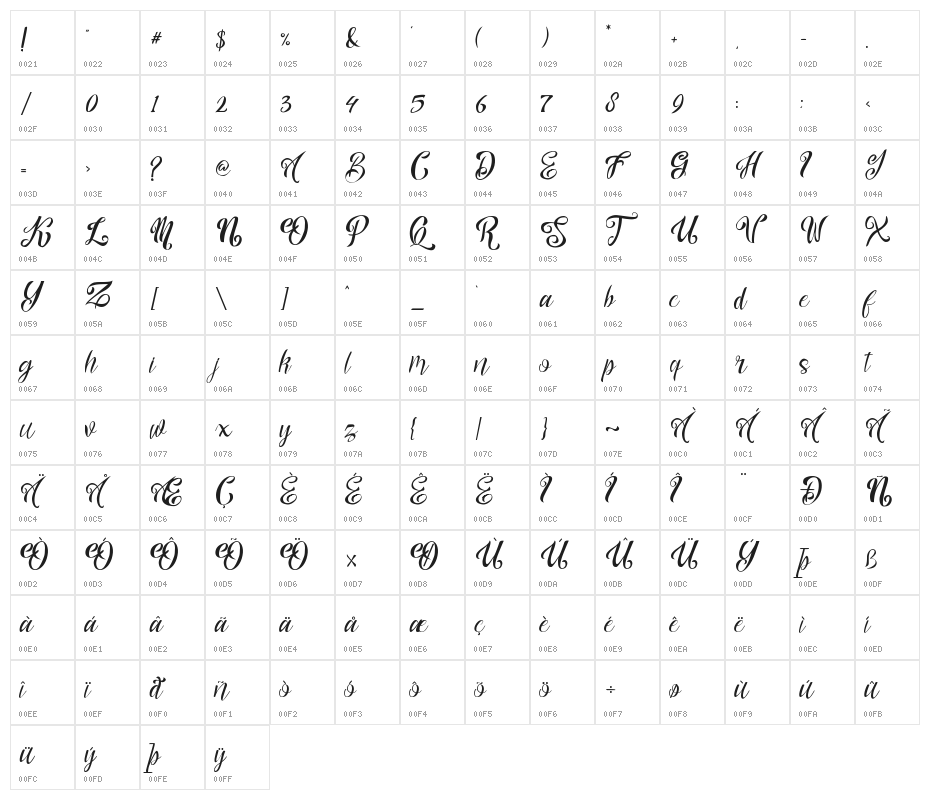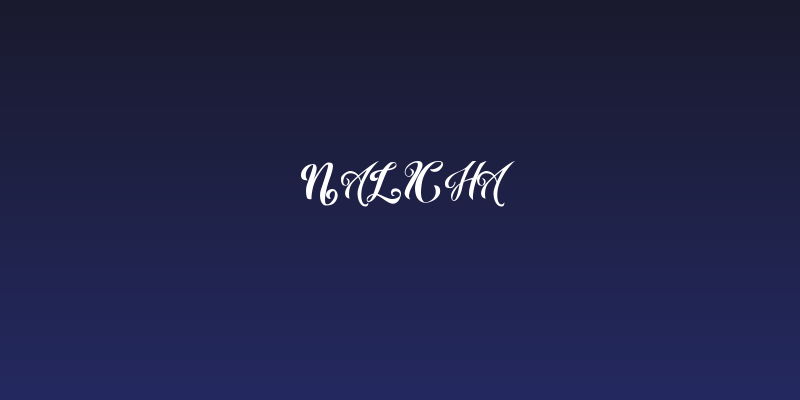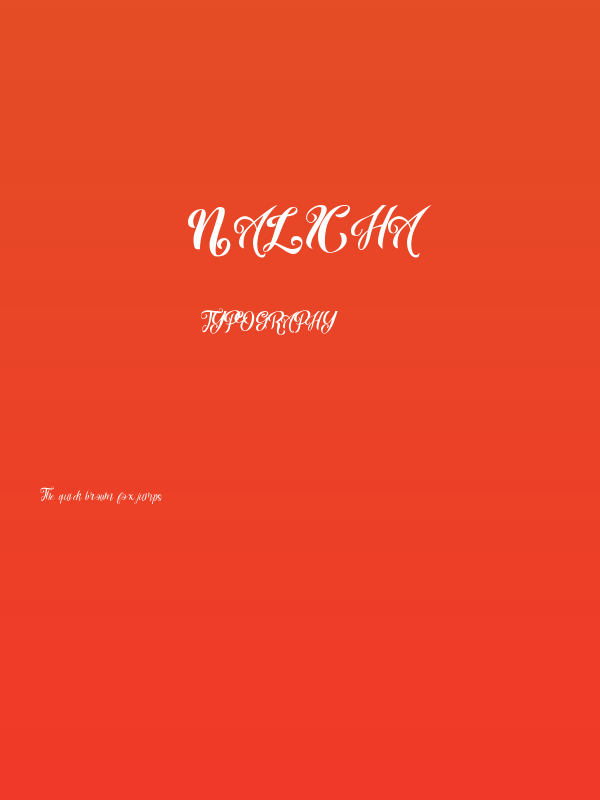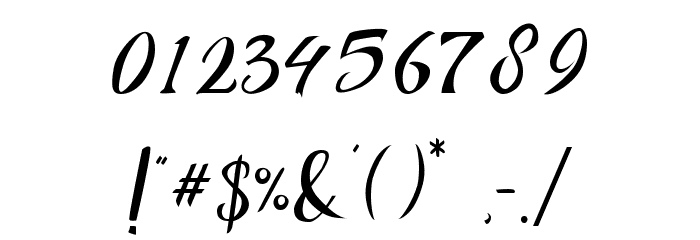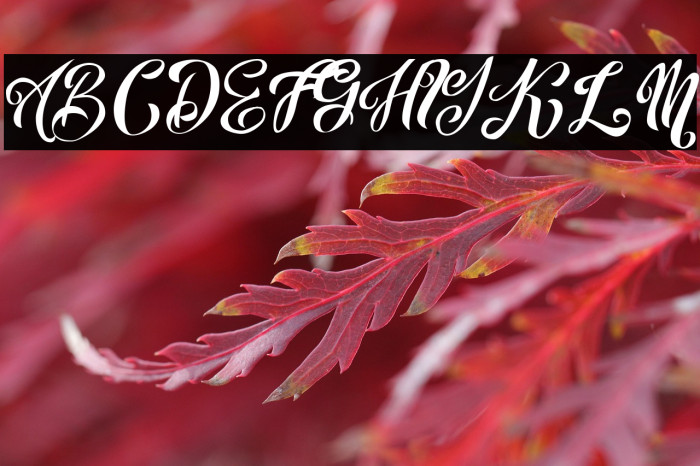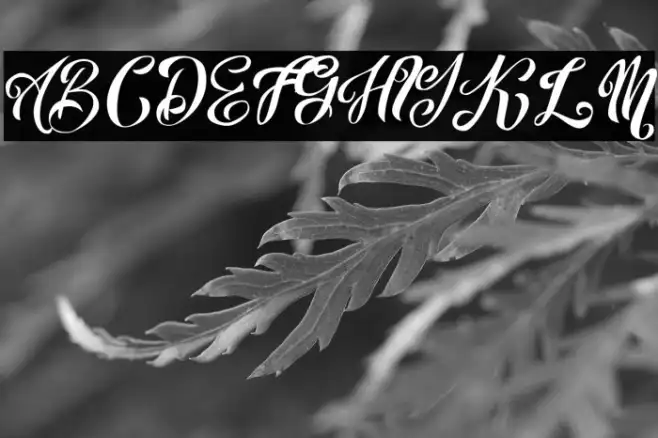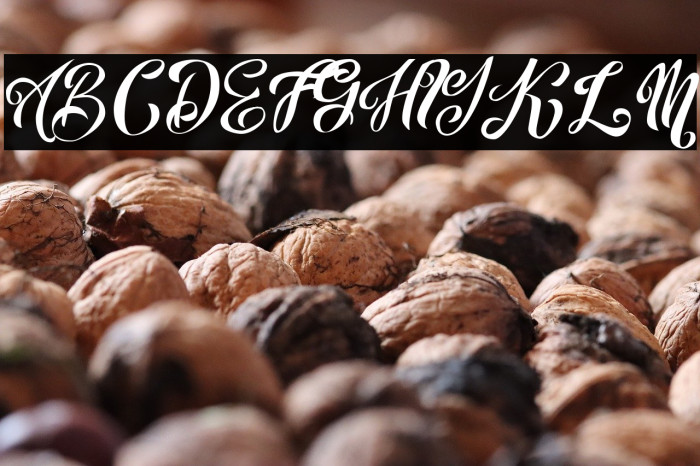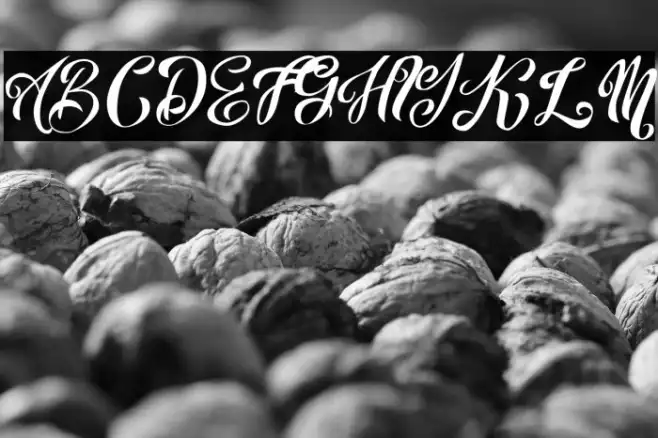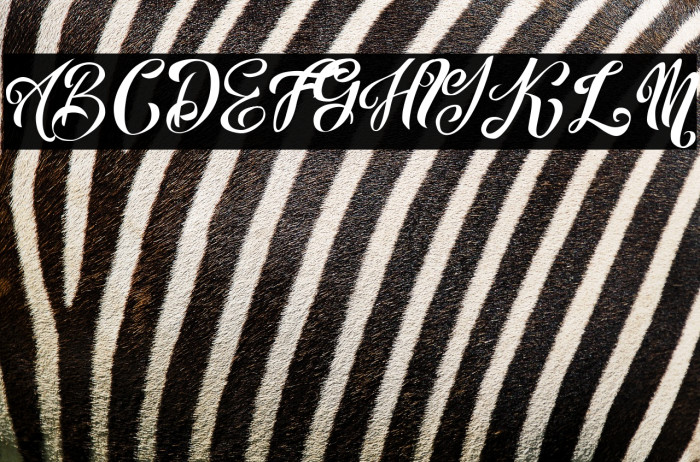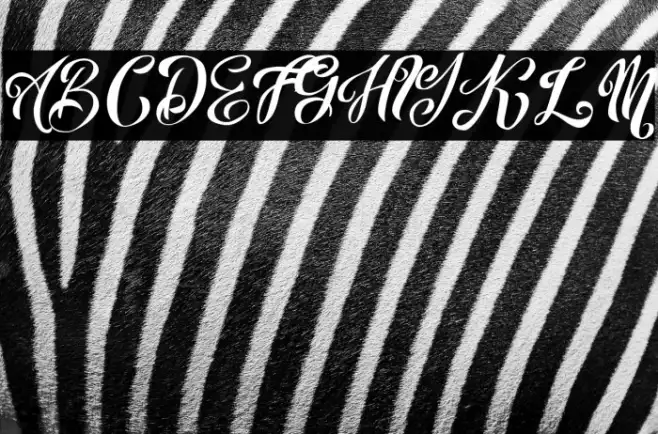
nalicha Font
nalicha Description
This elegant script font features a flowing, cursive style with intricate loops and swashes that give it a sophisticated and artistic appearance. The uppercase letters are particularly ornate, with exaggerated flourishes that add a touch of drama and elegance. The lowercase letters maintain a smooth, connected flow, making it ideal for creating a seamless and cohesive look. The numerals and special characters are designed to match the overall aesthetic, ensuring consistency across all text elements. This font is perfect for projects that require a touch of elegance and sophistication.
| Overall Style | Elegant, Artistic |
| Proposed Projects | Ideal for wedding invitations, elegant branding, greeting cards, and luxury product packaging. |